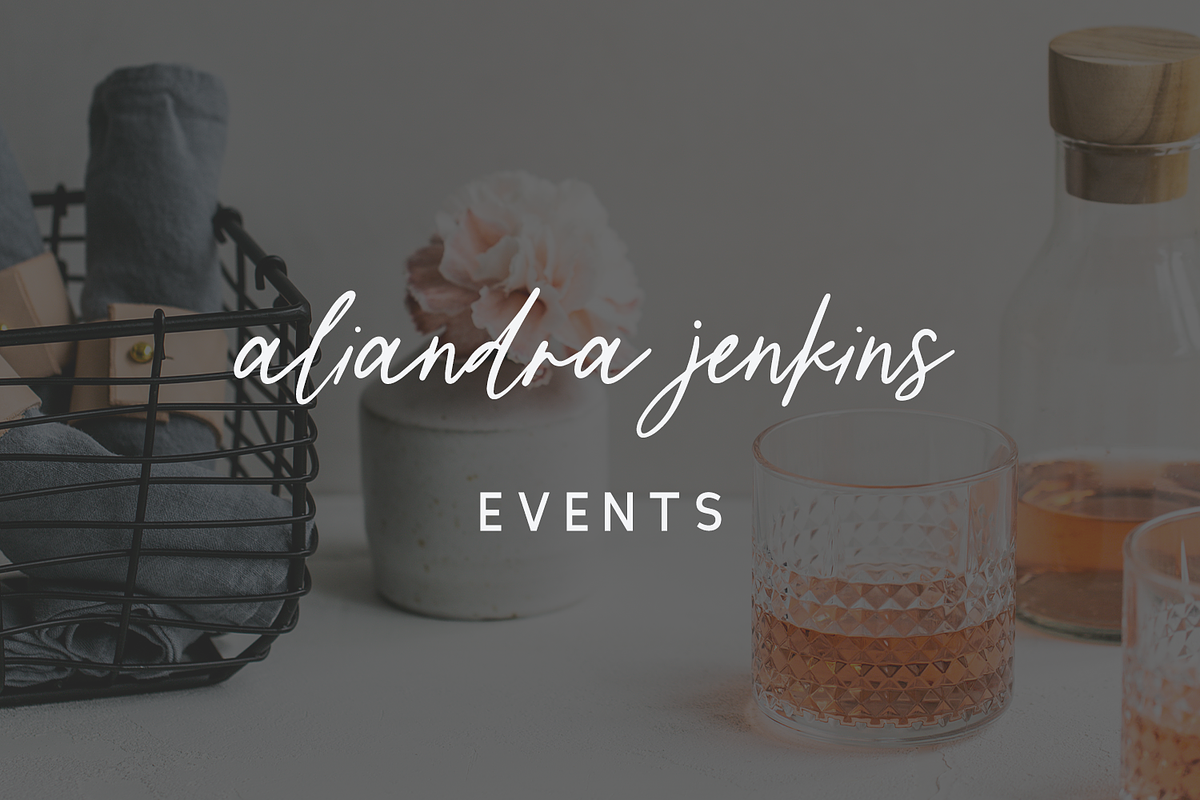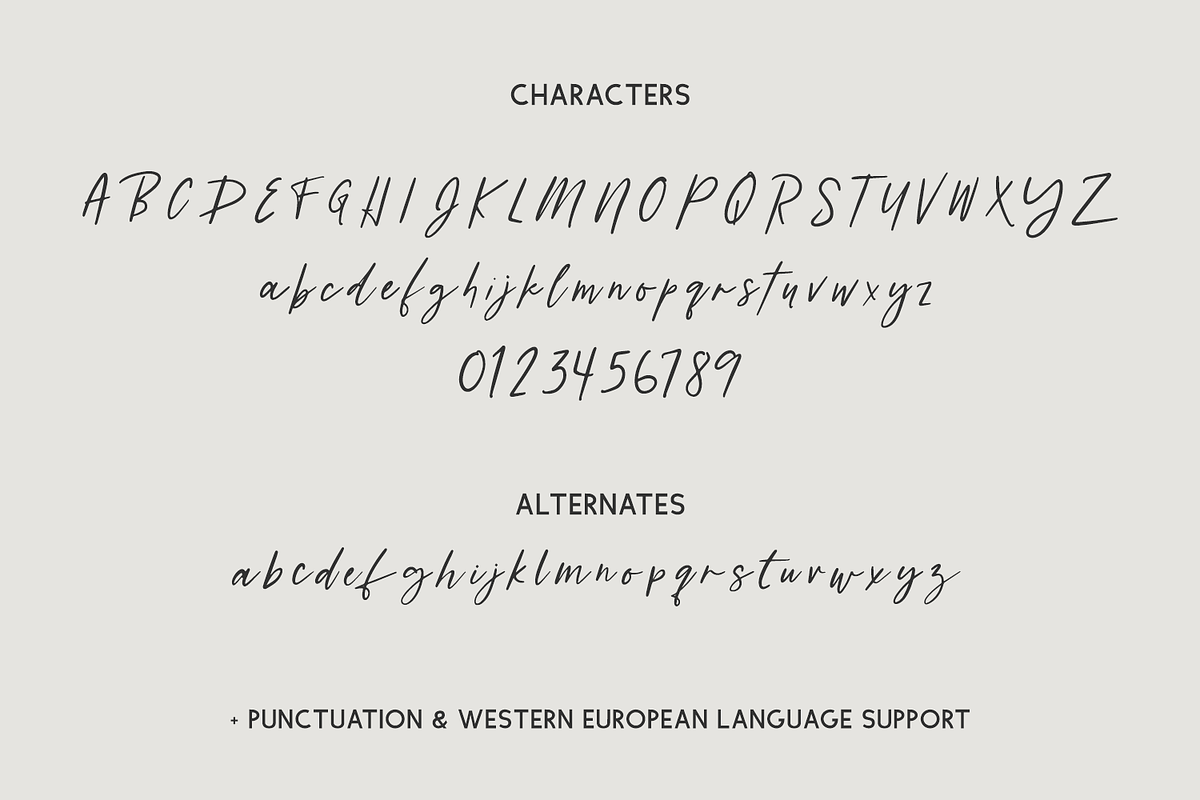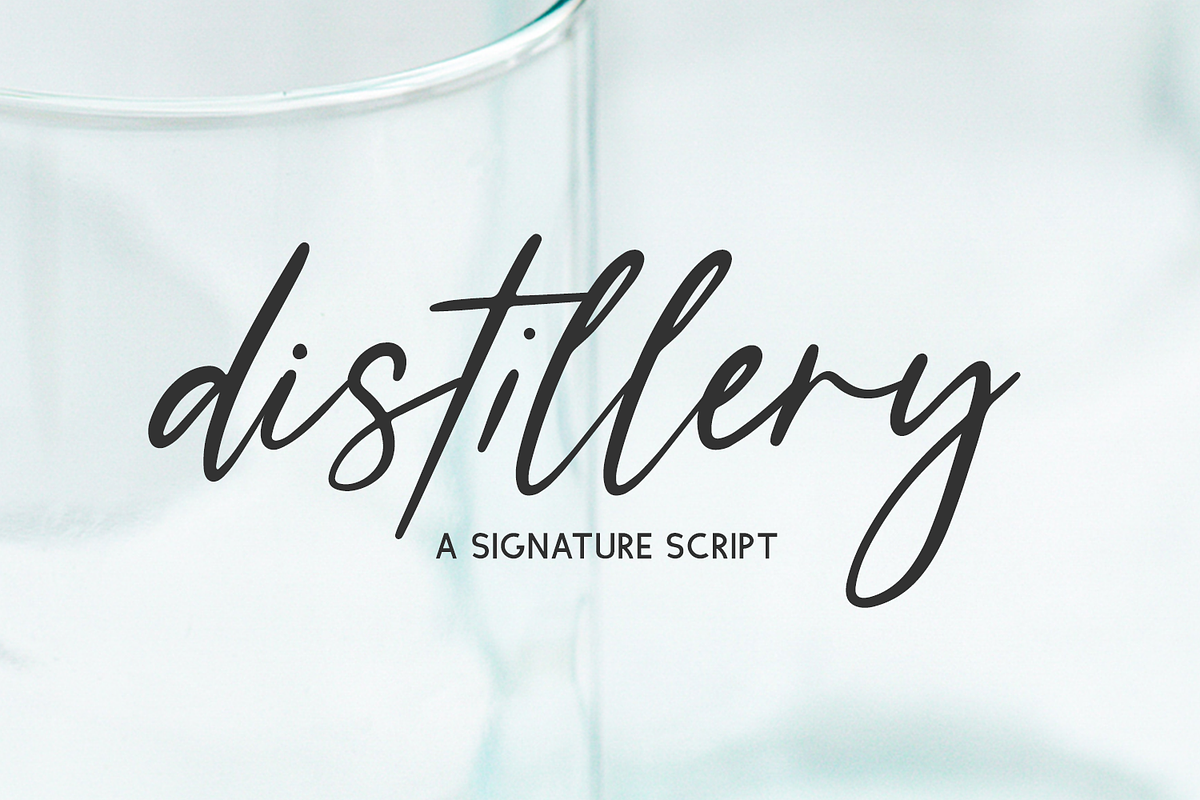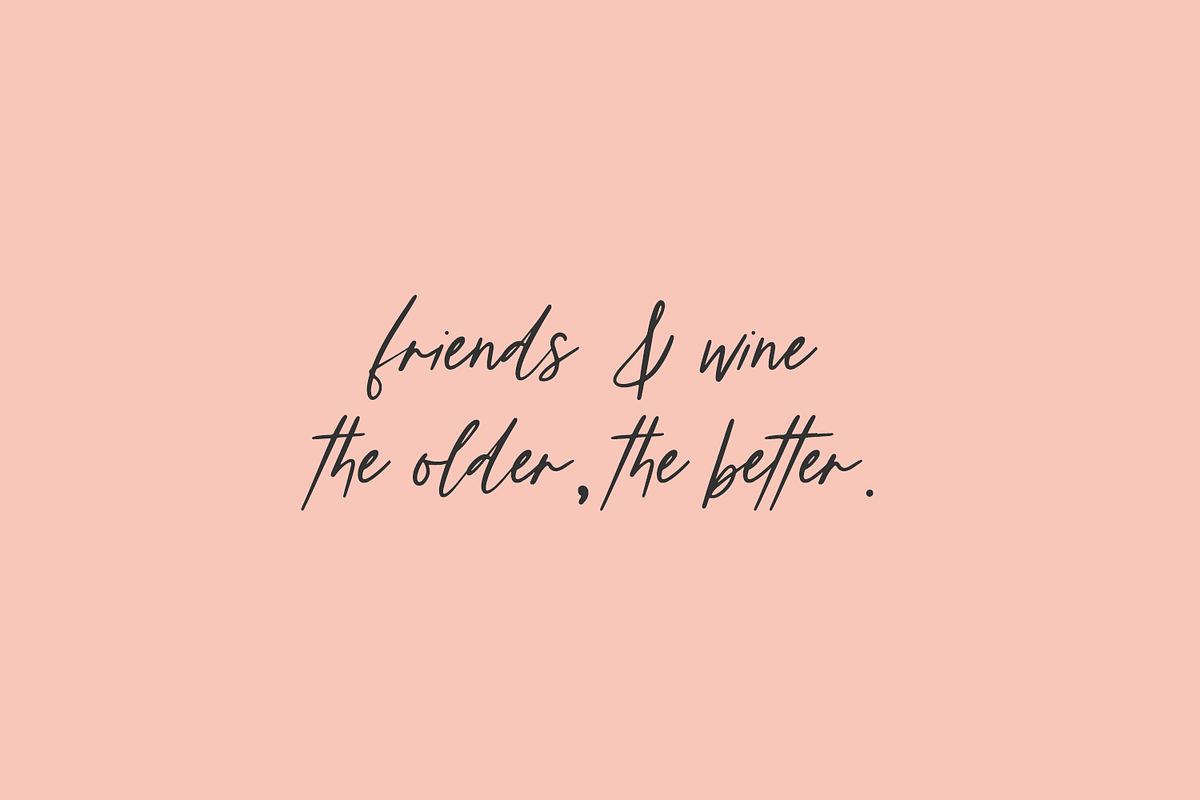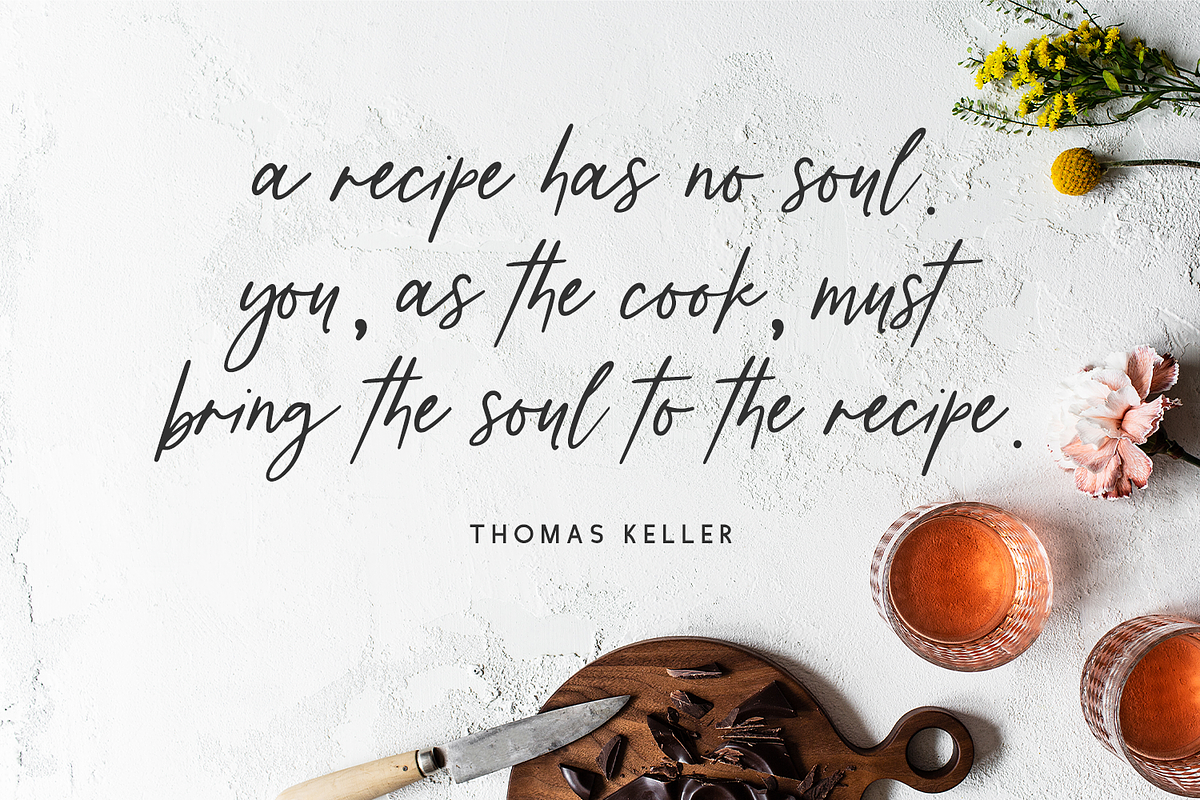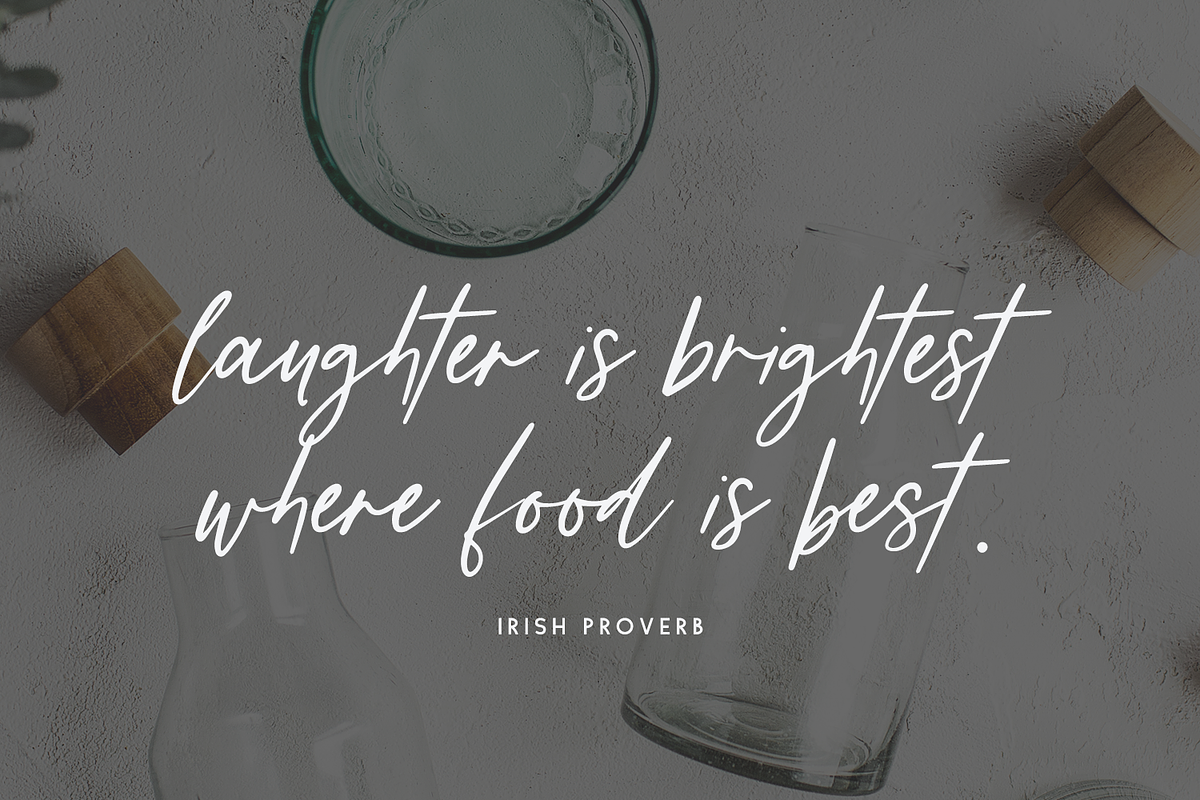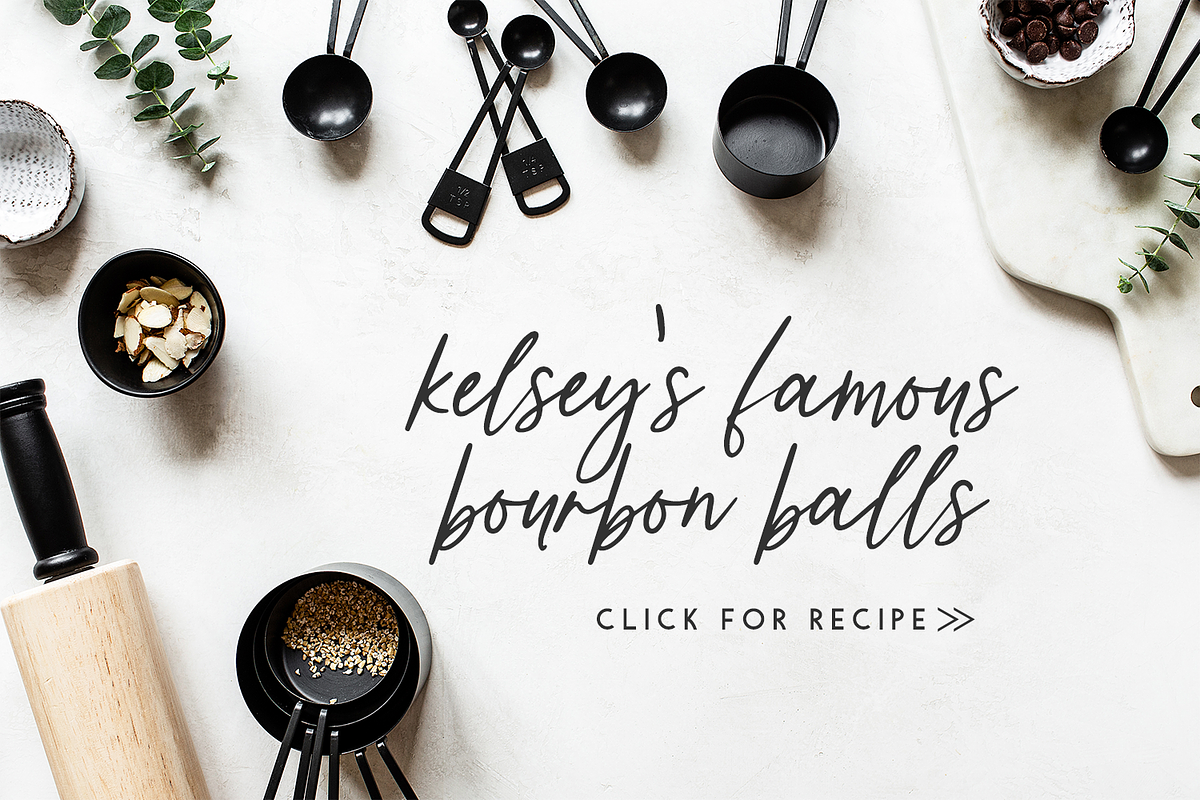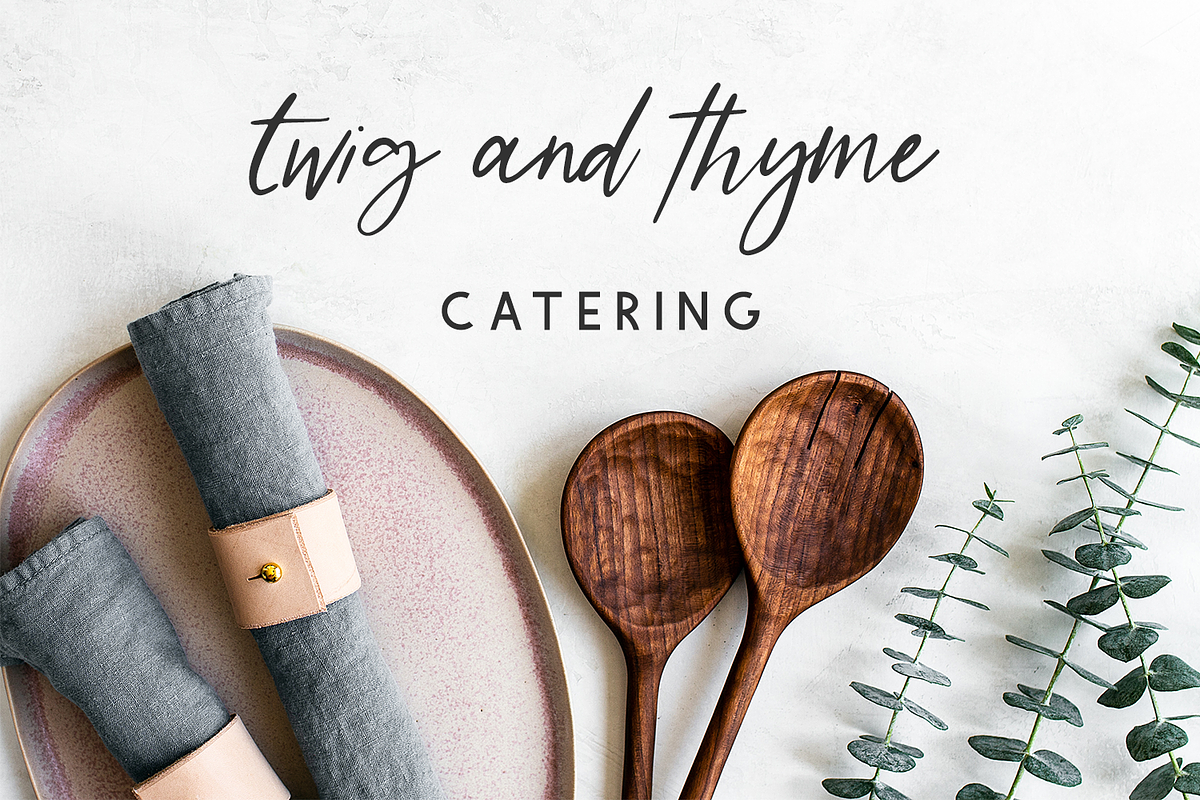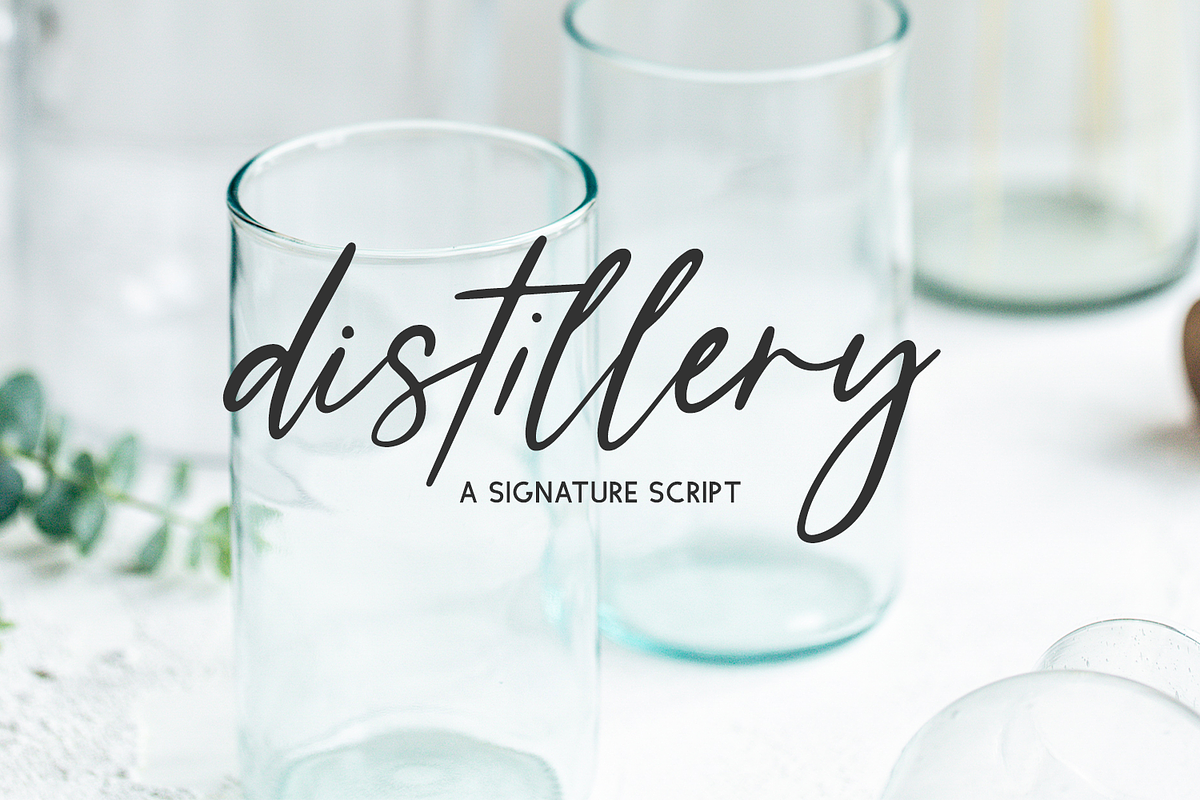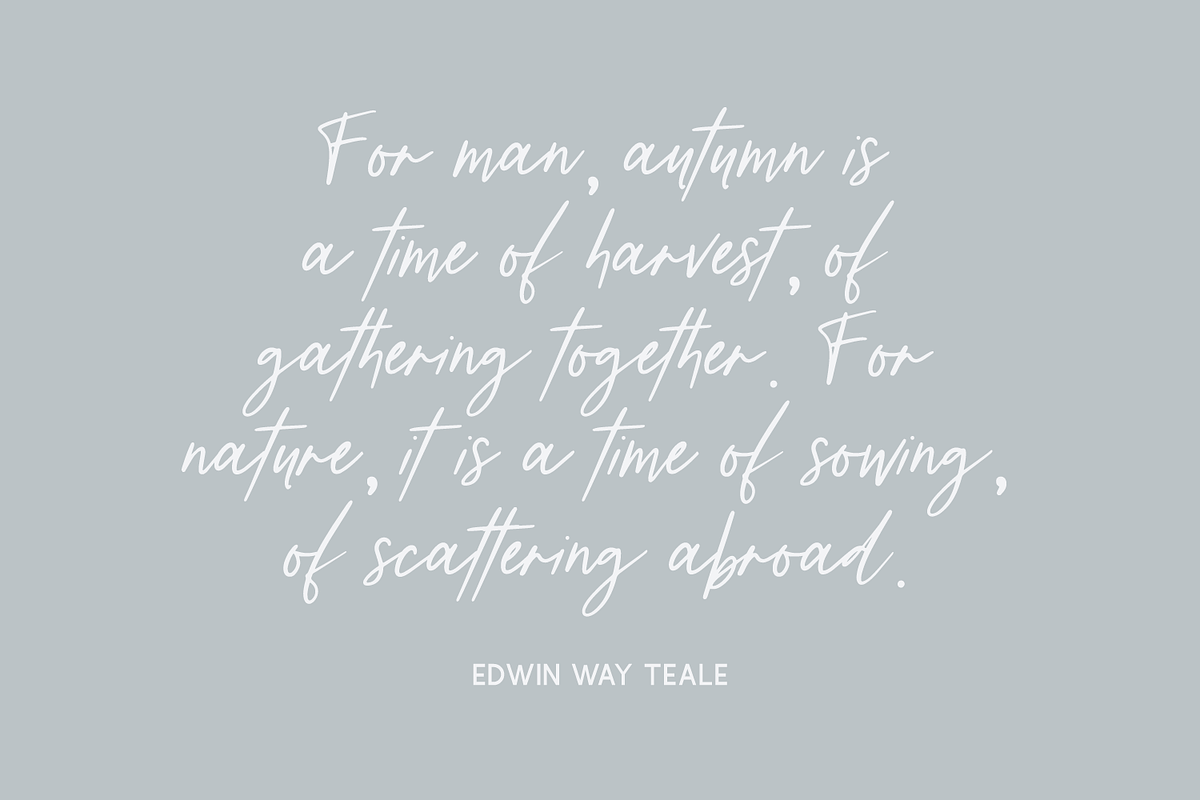
Distillery Script
Introducing Distillery Script, a signature font with alternates.
Distillery Script is best for:
- logos + branding
- website design + website accents - think travel blogs, fashion blogs, & more
- clean print design, like magazines + flyers
- header elements that need handwritten touch
- quote graphics for social media
Distillery includes:
- full upper + lowercase characters
- numbers + punctuation
- Western European Language Support
- 26 alternate characters